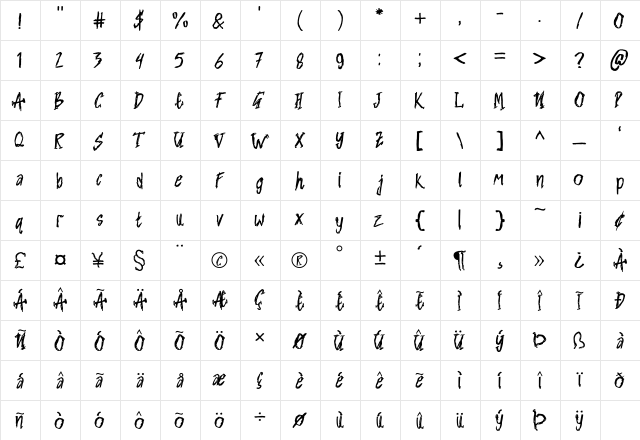
NIGHTMARE Regular
| Designer | Randy Ilhamsyah |
Design Context for NIGHTMARE Typeface
NIGHTMARE is a composed and adaptable typeface that performs quietly and consistently across a wide range of design contexts.